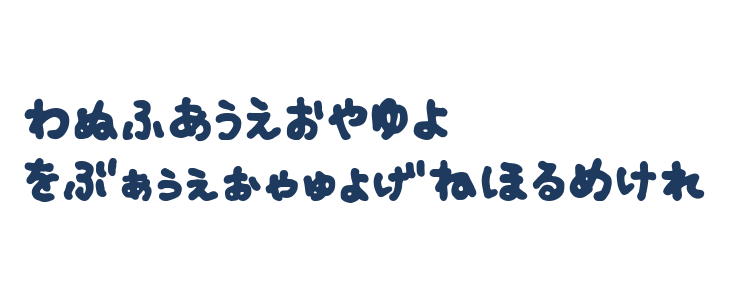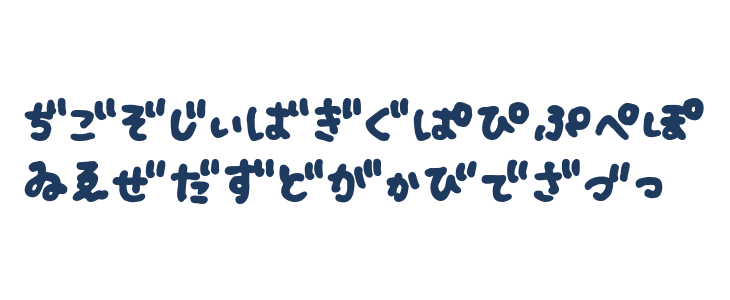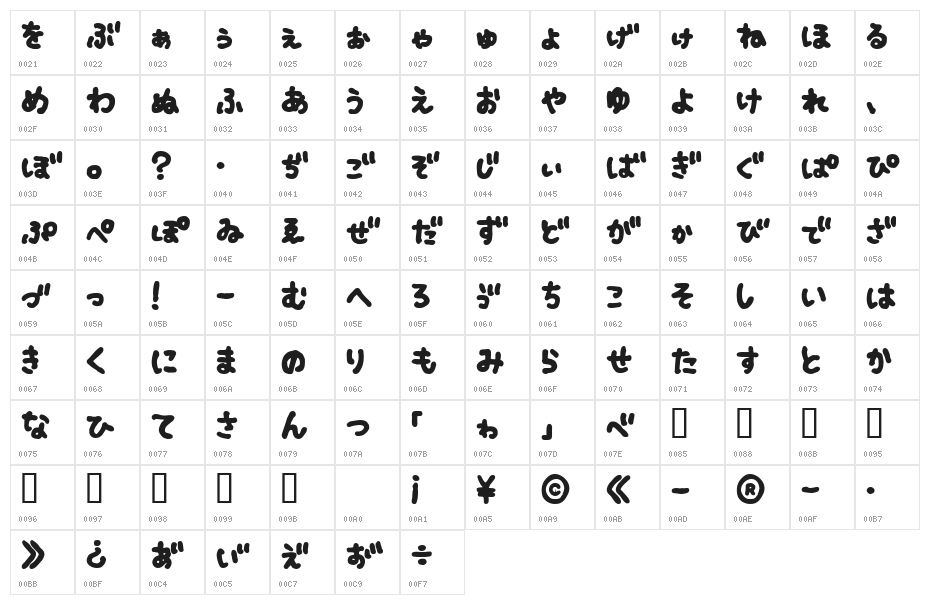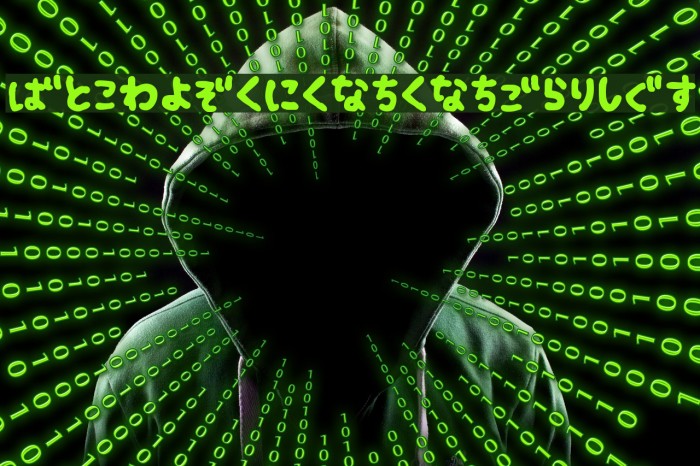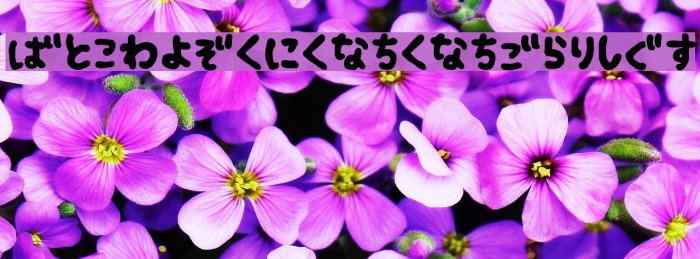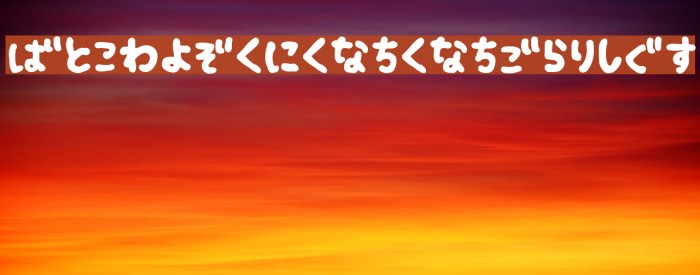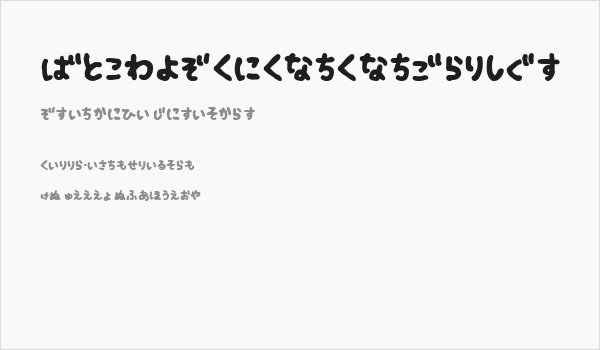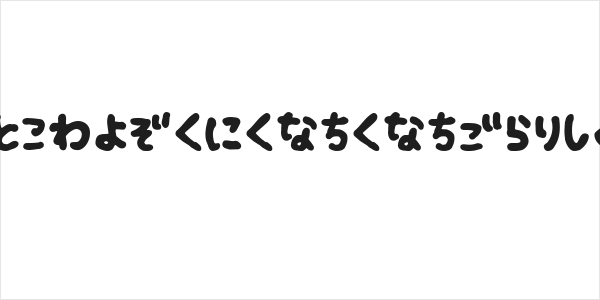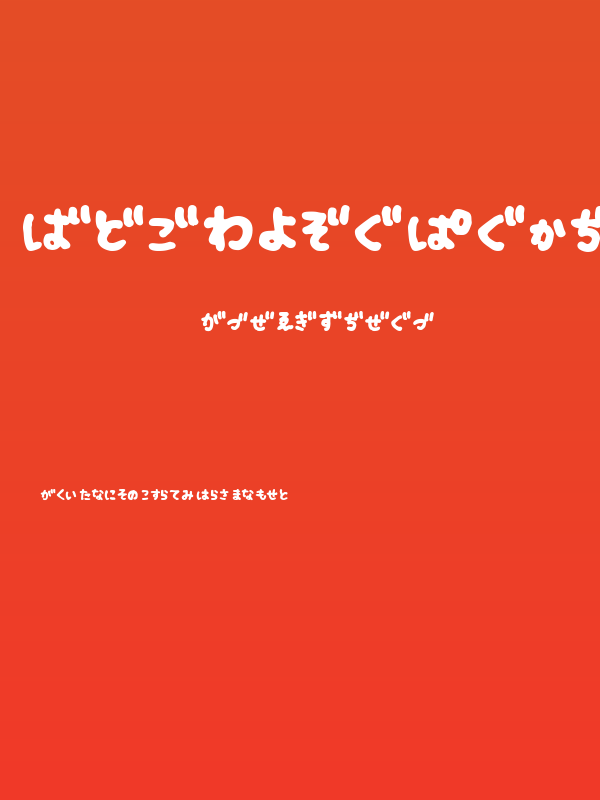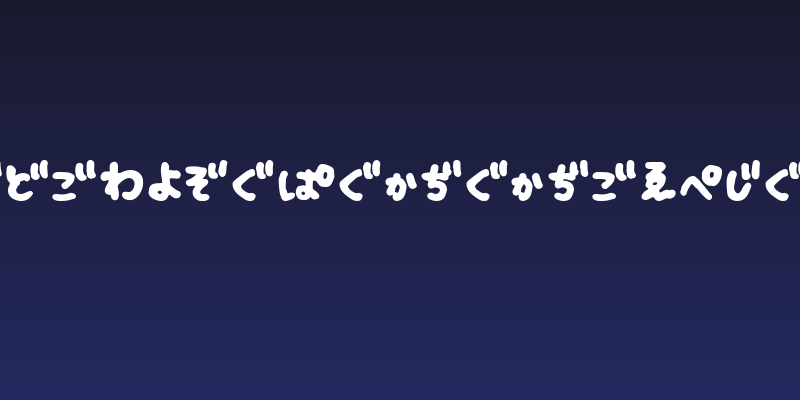
Fsb09ChihuahuaBoldHr Font
Fsb09ChihuahuaBoldHr Description
This playful and bold font features rounded, bubbly characters that convey a sense of fun and whimsy. The strokes are thick and uniform, giving the font a strong presence on the page. Its informal style is reminiscent of handwritten or cartoon-like scripts, making it ideal for projects that require a touch of humor or lightheartedness. The characters are well-spaced, ensuring readability while maintaining a cohesive look. The font's unique style is suitable for creative and casual applications, where a friendly and approachable tone is desired.
| Overall Style | Playful, Fun, Informal |
| Proposed Projects | Children's books, comic strips, playful branding, party invitations, and casual posters. |